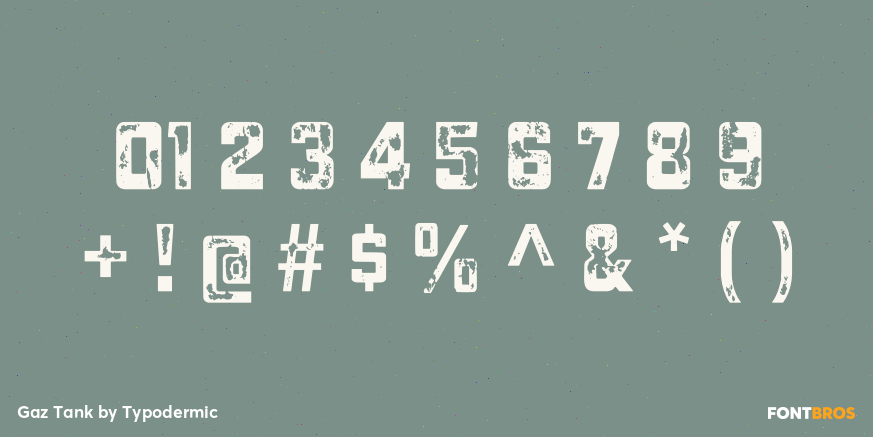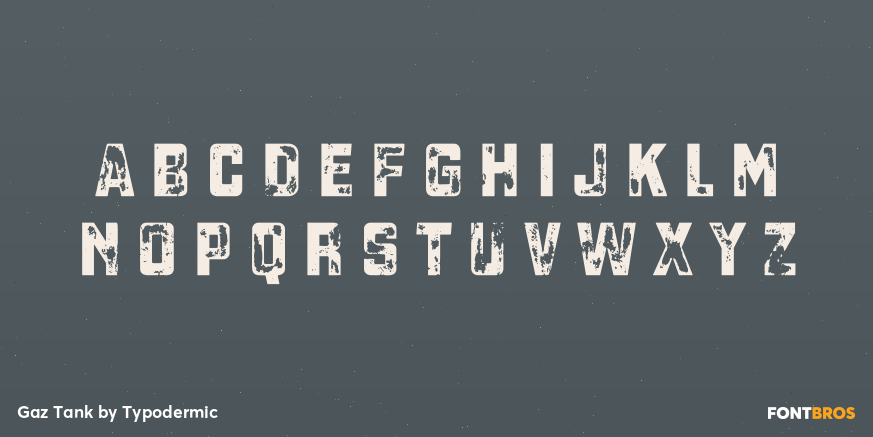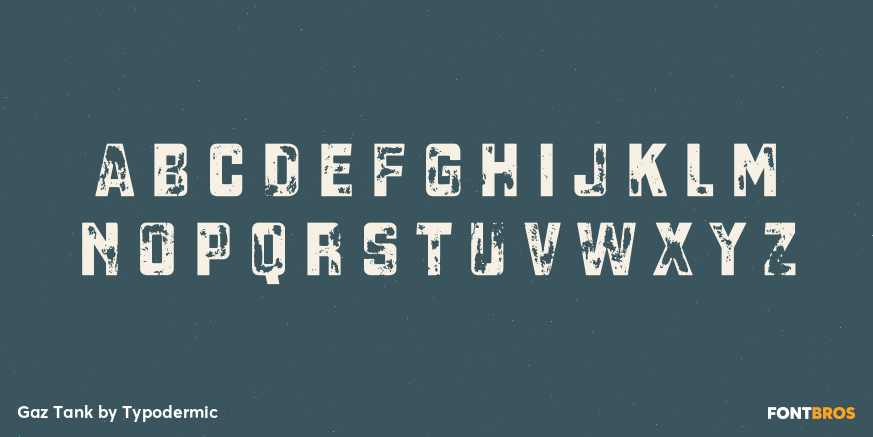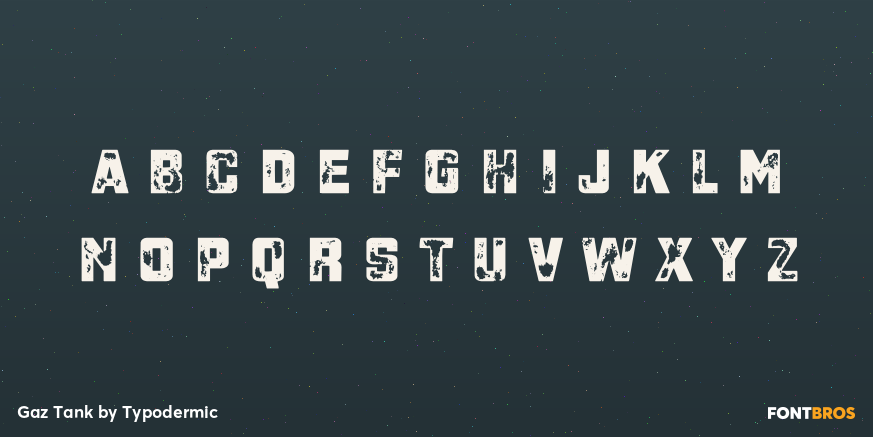
Gaz Tank
Gaz Tank applies distress to a heavy block skeleton. A few large, isolated, jagged knockouts cut through otherwise firm straight edges, producing the biggest discrete missing pieces among the five Gaz textures. Fumes spreads porosity across the whole surface and Tar builds a clotted edge; Tank preserves broad clean areas between its gouges. The result looks battered and impact-damaged without changing Gaz's compact proportions.
Gaz Tank by Typodermic